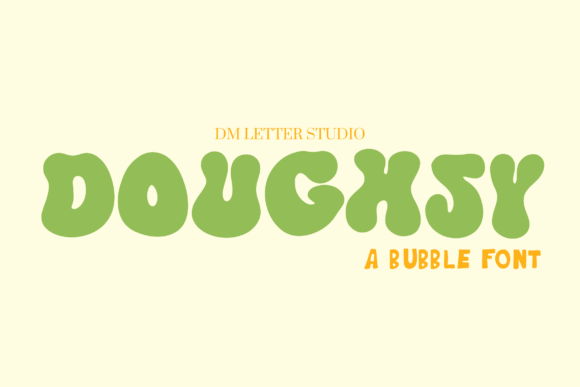
Get Ready to Rise to the Occasion with the Doughsy Font
Do you ever find yourself staring at a blank design canvas, feeling stuck and unsure of where to begin? For designers, this is a common creative hurdle, but what if we told you there’s a font that can help you break through that barrier and create designs that truly pop?
Enter the Doughsy Font, a playful bubble display font that’s designed to bring a smile to your face and a spring to your step. With its soft, thick, and cheerful personality, Doughsy is the perfect addition to kids’ branding, snack packaging, stickers, and other fun design projects. Whether you’re working on a YouTube thumbnail, birthday design, or playful logo, Doughsy’s fun and friendly vibe is sure to make your typography stand out.
Doughsy Font Key Features
- Unique Characteristics: This font features a unique, hand-drawn style with subtle imperfections, giving it a warm and organic feel, perfect for creative and artistic projects.
Doughsy Font Review
Initially, I was drawn to the Doughsy font for its playful and modern vibe ✨. The designer has done a great job of creating a unique and eye-catching font that would be perfect for branding and marketing materials. The font’s versatility makes it suitable for various industries and applications, from food and beverage to technology and finance.
Here are some of the things that I like about the Doughsy font:
- Its unique and modern design makes it stand out from other fonts ✨
- The font is highly versatile and can be used in various industries and applications
- It’s perfect for creating attention-grabbing headlines and titles
- The font’s playful vibe makes it suitable for creative and innovative brands
However, there are some limitations to the Doughsy font ⚠️:
- The font may not be suitable for formal or professional applications
- The font’s uniqueness may make it difficult to read in certain contexts
- The font may not be suitable for extended text blocks or body copy
Overall, I think the Doughsy font is a great addition to any designer’s toolkit. While it may have some limitations, its unique design and versatility make it a great choice for many applications. With the right use cases, the Doughsy font can help create attention-grabbing and memorable designs that leave a lasting impression.
Doughsy Font Practical Application Guide
Get the most out of Doughsy Font by using it for:
– Creative typography projects
– Food and restaurant branding
– Bakery and pastry designs
– Handwritten-style invitations and cards
Remember to adjust the font size and style according to your design needs, and experiment with different combinations to achieve the desired look.